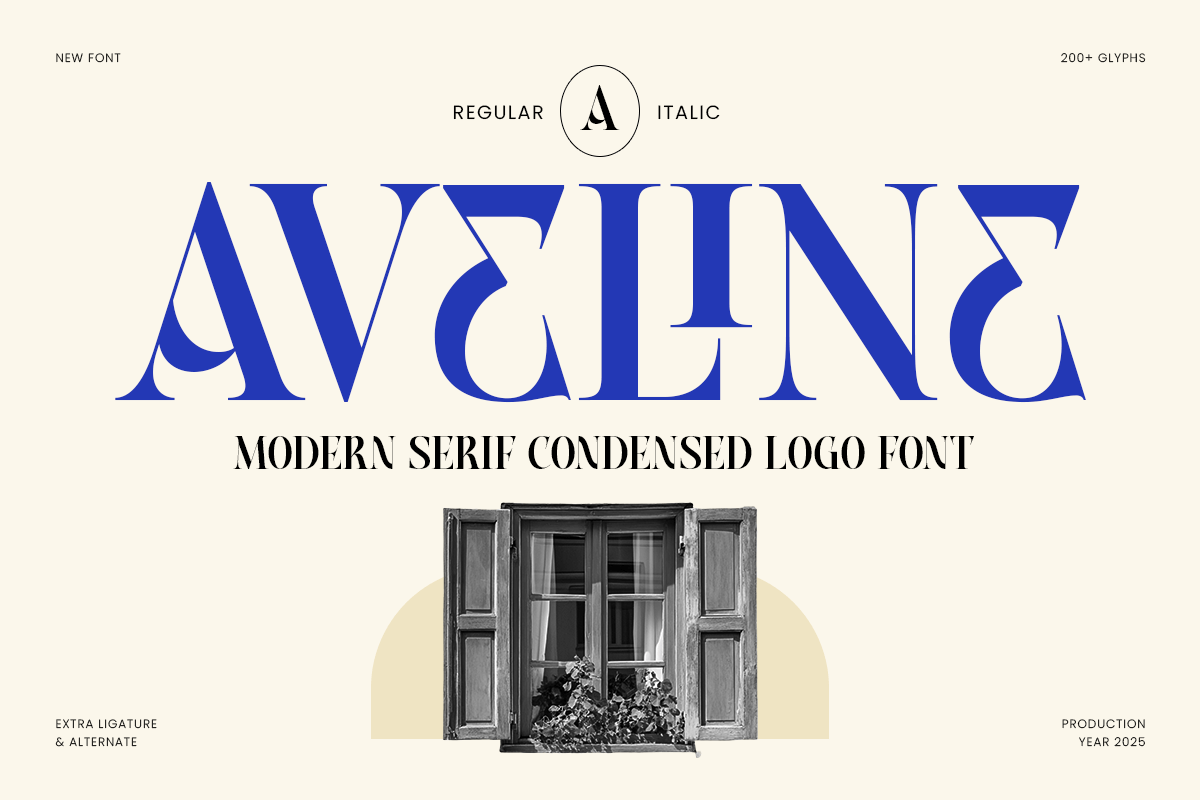
Aveline
-Modern Serif Condensed Logo Font
Aveline - Modern Serif Condensed Logo Font
AVELINE is a modern serif condensed logo font crafted to deliver refined elegance with a sleek, space-efficient silhouette. Its tall condensed proportions and polished serif details create a premium tone that feels confident, clean, and highly professional—perfect for modern branding that needs clarity with character.
Designed for logo design and brand identity systems, AVELINE works beautifully across wordmarks, packaging, labels, website headers, editorial headlines, posters, signage, and social media visuals. The condensed structure helps you fit more text without losing impact, while the modern serif styling adds a sophisticated, high-end finish.
Whether you’re building a boutique identity, a premium product brand, or a modern editorial layout, AVELINE brings contemporary elegance and condensed precision that keeps typography memorable across digital and print projects.
Inspiration Behind AVELINE
AVELINE is inspired by modern editorial typography and luxury branding aesthetics—where condensed serif forms create authority, elegance, and efficiency. The design focuses on a clean, vertical rhythm and refined serif detailing to support premium logos, sleek headlines, and modern brand systems that require both impact and sophistication.
AVELINE Font Features
• Modern condensed serif letterforms with refined logo presence
• Ready with regular and italic version for variation options
• Optimized for wordmarks, branding systems, and headline design
• Strong readability with tall, space-saving proportions
• Logo design, wordmarks, and premium brand identity
• Editorial headlines, magazine covers, and lookbook layouts
• Packaging, labels, and product branding design
• Website headers, banners, and modern UI typography
• Posters, signage, and social media campaigns
Elevate refined branding with AVELINE—crafted for modern condensed serif logos with premium editorial elegance. ✨